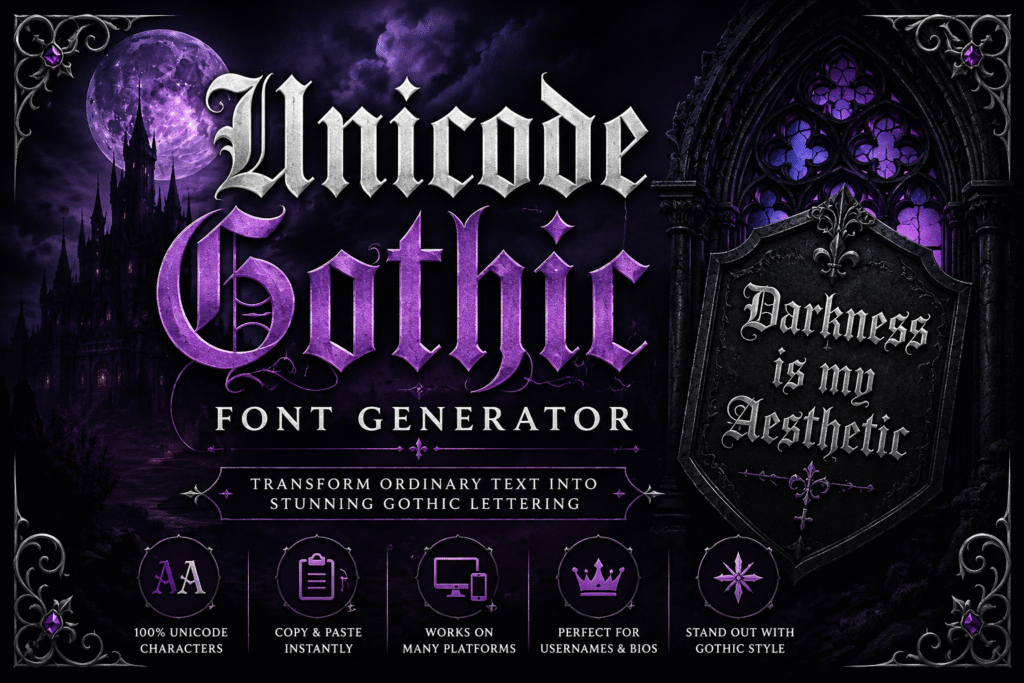
Unicode Gothic Fonts Explained (Complete Guide)
Many people search for Unicode Gothic fonts when they want decorative Gothic lettering that can be copied and pasted into social media profiles, gaming usernames, messages, and online content. Unlike traditional font files that must be installed on a device, Unicode Gothic text uses special characters that already exist within the Unicode standard.
What Are Unicode Gothic Fonts?
Unicode Gothic fonts are decorative character sets that visually resemble Gothic, Blackletter, or Old English typography. Although people often call them fonts, they are actually Unicode characters arranged to create a Gothic appearance.
Unlike downloadable font files:
• ✓ No installation is required
• ✓ Text can be copied instantly
• ✓ Works across many websites and apps
• ✓ Can be used on mobile and desktop devices
• ✓ Supports social media profiles and usernames
This is why Unicode Gothic text has become popular for online identities, creative branding, and aesthetic social media profiles.
How Unicode Gothic Text Works
Unicode is an international character standard that assigns a unique code to thousands of symbols, letters, and special characters.
When you enter text into a Gothic Font Generator, the generator replaces standard letters with Unicode alternatives that visually resemble Gothic lettering.
Example:
Normal Text:
Online Fonts Generator
↓
Unicode Gothic Text:
𝕺𝖓𝖑𝖎𝖓𝖊 𝕱𝖔𝖓𝖙𝖘 𝕲𝖊𝖓𝖊𝖗𝖆𝖙𝖔𝖗
The text remains copyable and searchable because it is still composed of Unicode characters rather than image files.
FeatureUnicode Gothic TextTraditional Font
Installation RequiredNoYes
Copy and PasteYesLimited
Social Media SupportHighLow
Works Across DevicesUsuallyDepends on font
Editable TextYesYes
File Download NeededNoYes
Most users choose Unicode text because it can be used immediately without downloading anything.
Where Can You Use Unicode Gothic Fonts?
Unicode Gothic text is commonly used on:
📱 Social Media Profiles
Users frequently place Gothic lettering in:
• Instagram bios
• TikTok usernames
• Facebook profiles
• X profiles
• YouTube channel names
🎮 Discord and Gaming Platforms
Gaming communities often use Gothic text in:
• Discord nicknames
• Steam profiles
• Roblox usernames
• Fortnite accounts
• Twitch channels
🎨 Creative Branding
Many creators use Gothic Unicode text for:
• Logo concepts
• Design mockups
• Posters
• Merchandise concepts
• Digital artwork
Popular Unicode Gothic Text Examples
Uppercase Gothic Alphabet
𝕬 𝕭 𝕮 𝕯 𝕰 𝕱 𝕲 𝕳 𝕴 𝕵 𝕶 𝕷 𝕸 𝕹 𝕺 𝕻 𝕼 𝕽 𝕾 𝕿 𝖀 𝖁 𝖂 𝖃 𝖄 𝖅
Lowercase Gothic Alphabet
𝖆 𝖇 𝖈 𝖉 𝖊 𝖋 𝖌 𝖍 𝖎 𝖏 𝖐 𝖑 𝖒 𝖓 𝖔 𝖕 𝖖 𝖗 𝖘 𝖙 𝖚 𝖛 𝖜 𝖝 𝖞 𝖟
Gothic Name Examples
𝕬𝖑𝖊𝖝
𝕸𝖎𝖆
𝕯𝖆𝖗𝖐𝕶𝖓𝖎𝖌𝖍𝖙
𝕽𝖆𝖛𝖊𝖓𝕾𝖔𝖚𝖑
Why People Use Unicode Gothic Fonts
Users choose Gothic Unicode text because it:
✨ Looks distinctive
🎭 Creates a strong visual identity
🖤 Supports Gothic aesthetics
📱 Works on most modern devices
🚀 Helps usernames stand out
🌟 Adds personality to profiles
⚡ Requires no software installation
Common Compatibility Issues
Although Unicode text works on most modern platforms, occasional issues can occur.
Possible Issues
• ⚠️ Older devices showing missing characters
• ⚠️ Different rendering between operating systems
• ⚠️ Unsupported characters in some apps
• ⚠️ Inconsistent spacing
✅ Testing text before publishing is always recommended.
Gothic Fonts vs Old English Fonts
Many users assume Gothic and Old English fonts are identical.
🖤 Gothic Fonts
• A broad style category
• Includes many decorative variations
• Commonly inspired by Blackletter typography
• Popular in gaming, branding, and social media
VS
📜 Old English Fonts
• A popular decorative interpretation
• Frequently associated with medieval lettering
• Uses Blackletter-inspired letterforms
• Common in tattoos, logos, and vintage designs
Yes. Most Instagram profiles, bios, and usernames support Unicode Gothic text.
Can I copy and paste Unicode Gothic text?
Yes. Generated text can usually be copied and pasted directly into supported apps and websites.
How do I create Unicode Gothic text?